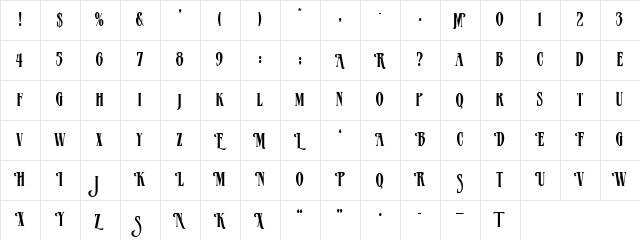
Mazama Normal Free Font
Mazama Normal
Design Context for Mazama
Mazama is a composed and adaptable typeface that performs quietly and consistently across a wide range of design contexts.